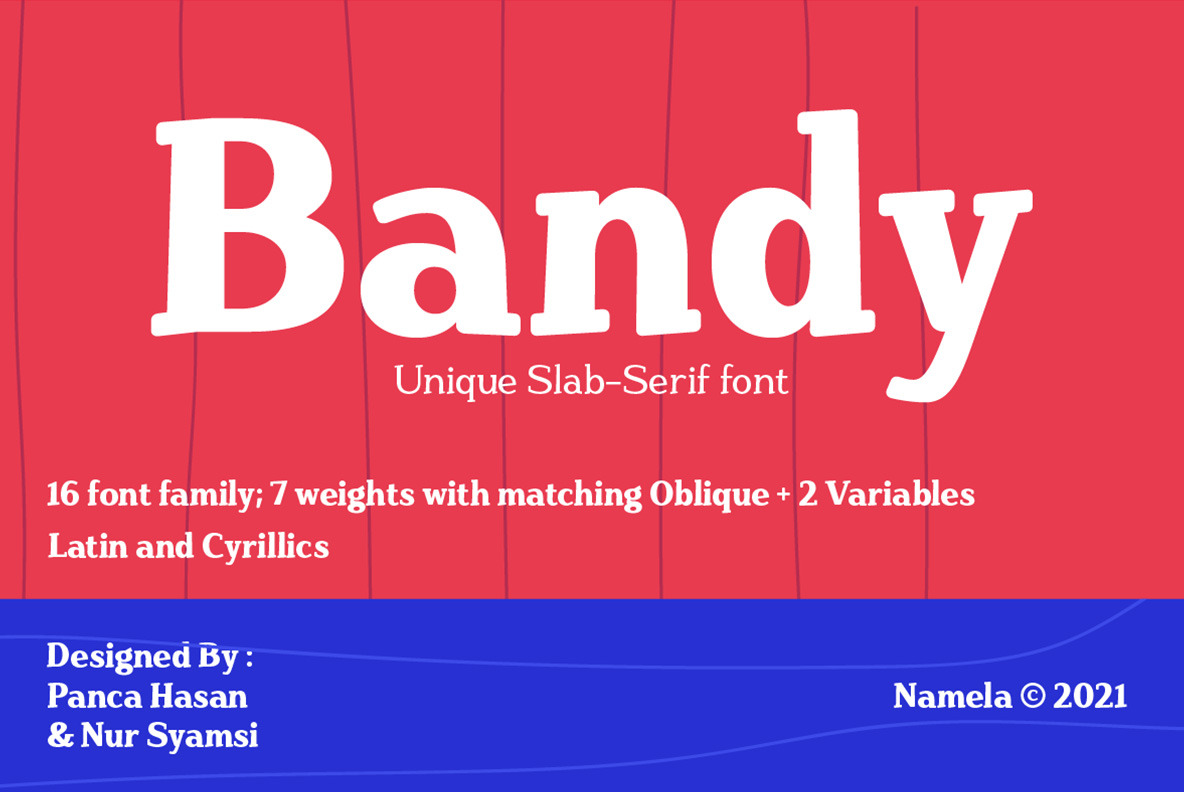
Bandy Retro Slab Font
Bandy Retro Slab Font seamlessly marries rounded and bended slabs, hence its fitting name. It’s a versatile typeface, equally adept at being a striking display font and a reliable choice for body text. Its cool, contemporary vibe makes it an excellent fit for various design and printing projects, elevating them with its unique aesthetic.
One of Bandy font’s standout features is its extensive language support, making it accessible and usable across diverse cultures and regions. Its OpenType features enrich your creative palette, while its compatibility with both Latin and standard Cyrillic scripts broadens its applicability.
With a robust family of 14 fonts spanning 7 sizes, including matching oblique styles, Bandy Retro Slab Font offers a wide spectrum of possibilities. Whether you’re crafting digital designs or print materials, Bandy font’s rounded and bended slabs add a touch of distinction to your creative endeavors, making it a must-have addition to your typographic toolkit.